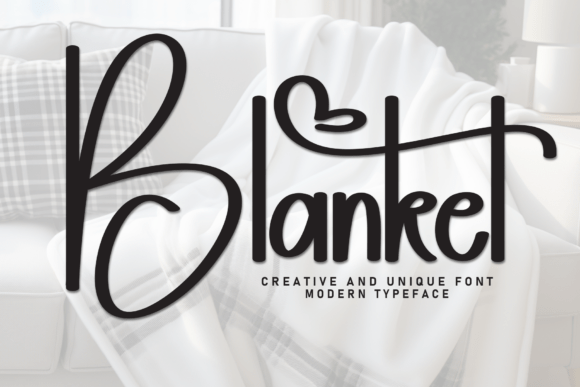
Wrap Your Designs in Warmth with Blanket Font
As designers, we’ve all been there – staring at a blank page, struggling to find the perfect font to bring our vision to life. And then, it happens: a spark of inspiration, a glimpse of something beautiful, and suddenly, our creative juices start flowing. For us, that moment came when we discovered the Blanket Font, a charming display font designed to wrap your designs in warmth and clarity.
With its clean structure and approachable style, Blanket Font is perfect for branding, headlines, and everyday designs. Its balanced letterforms offer readability and charm, making every message feel genuine and inviting. Whether you’re a seasoned designer or just starting out, Blanket Font is a valuable addition to your toolkit, providing the perfect balance of style and substance to elevate your projects.
Blanket Font Key Features
- Unique Characteristics: Blanket Font features a unique blend of hand-drawn and digital elements, creating a distinctive and visually appealing aesthetic.
- Kerning and Ligatures: Blanket Font includes advanced kerning and ligature tables, ensuring that text sets are optimized for readability and visual appeal.
Blanket Font Review
Overall, I’d say the Blanket Font is a great addition to any designer’s toolkit. It has a unique, hand-drawn quality that adds a touch of warmth and personality to any project. ✨
- Unique, hand-drawn style that adds character to projects
- Good for branding and editorial content where a more personal touch is desired
- Versatile font that works well in both digital and print applications
However, like any font, the Blanket Font has its limitations. ⚠️
- Not ideal for projects where a more formal or corporate tone is required
- Can be difficult to read at smaller font sizes due to its hand-drawn nature
- Limited language support, which may be a concern for designers working with international clients
Overall, I’d recommend the Blanket Font for designers who want to add a touch of personality to their projects. While it may not be suitable for every project, it’s a great option for branding, editorial content, and other applications where a more personal touch is desired.
The Blanket Font is ideal for:
- Creative branding and logos
- Artistic typography and illustrations
- Emphasizing text in designs and presentations